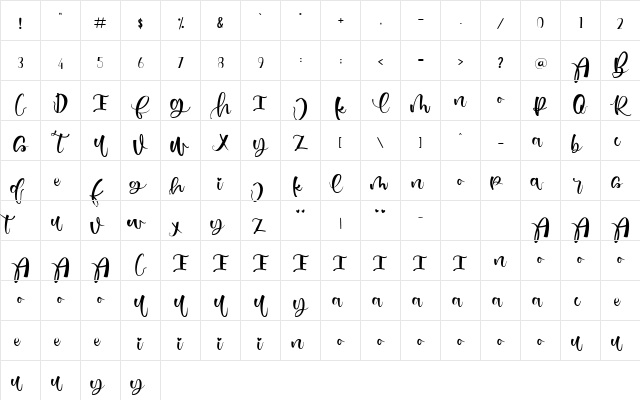
Just Love Regular Font Preview
Just Love Regular
Just Love Regular Font Details
| Foundry | Markonah Creative |
| Designer | Herman |
Design Context for Just Love Typeface
Just Love is a composed and adaptable typeface that performs quietly and consistently across a wide range of design contexts.